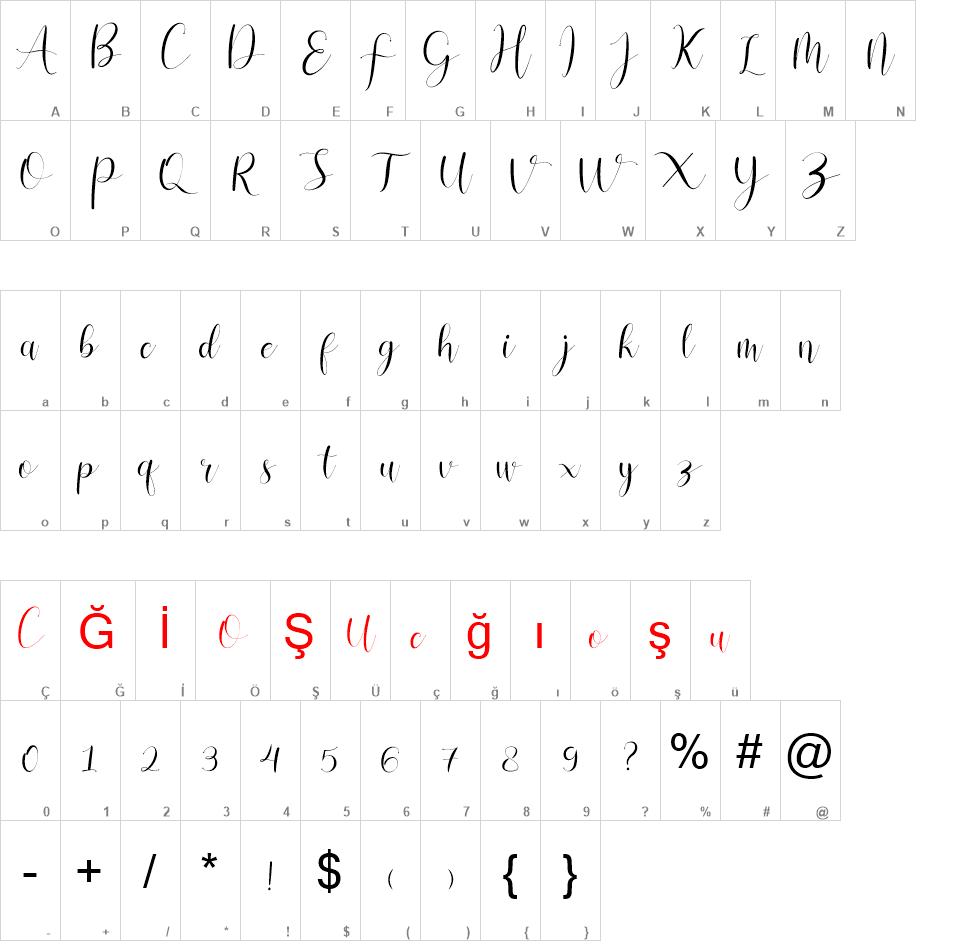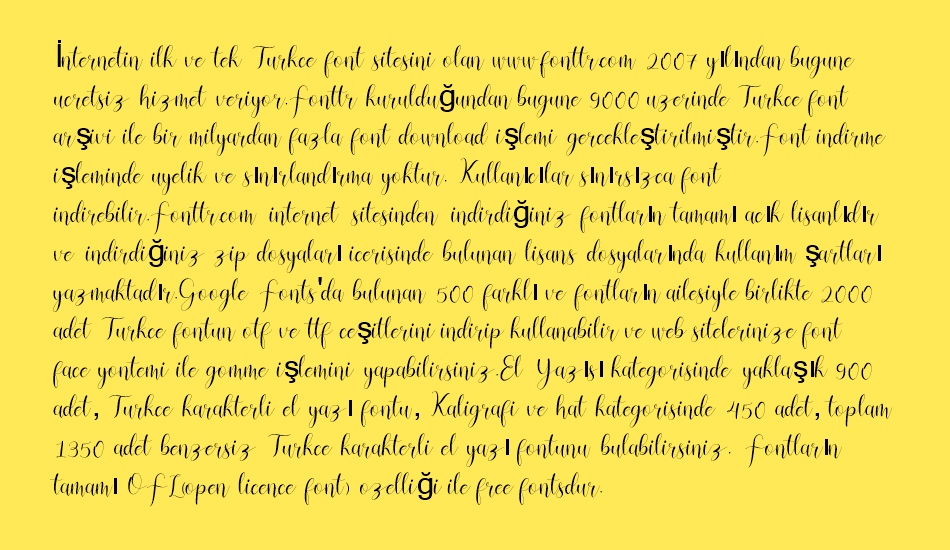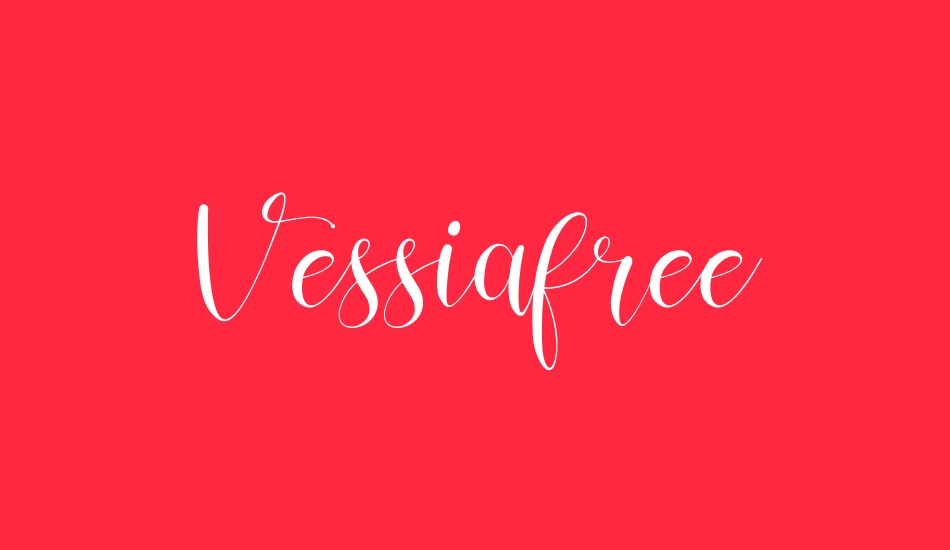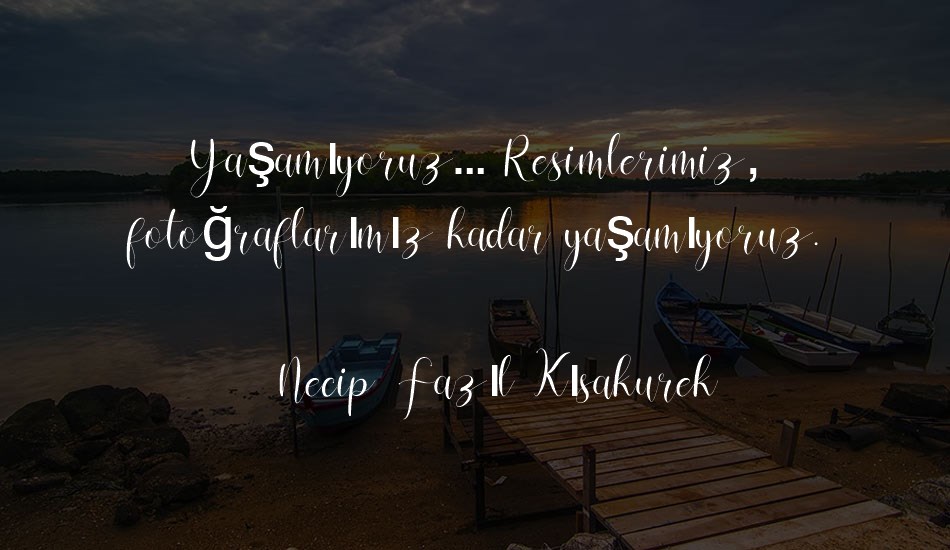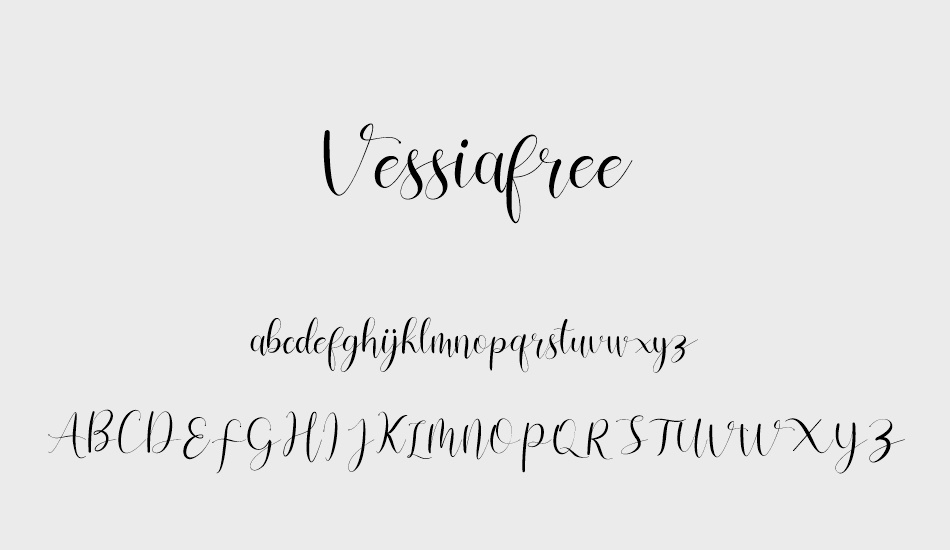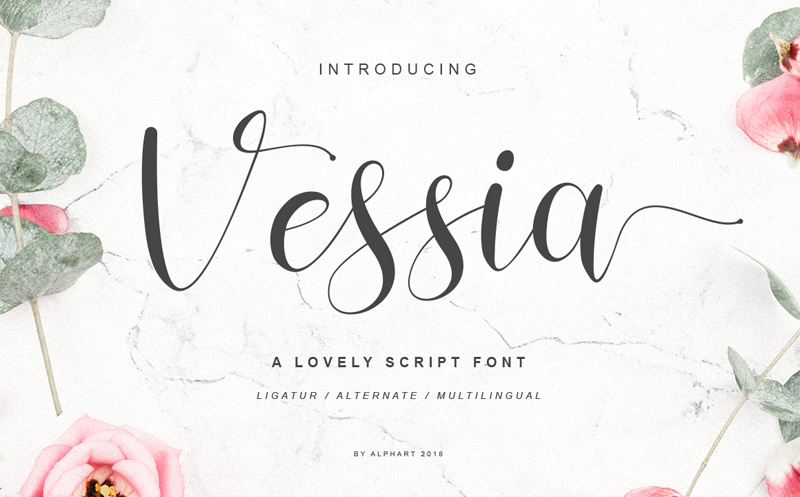
Vessia font
Vessia
Vessia a lovely script font - a new modern & fresh script with a handwritten and script style make this font looks cute, elegant, stylish and perfect for any awesome projects that need lettering taste.
ligature
alternate
multi lingual